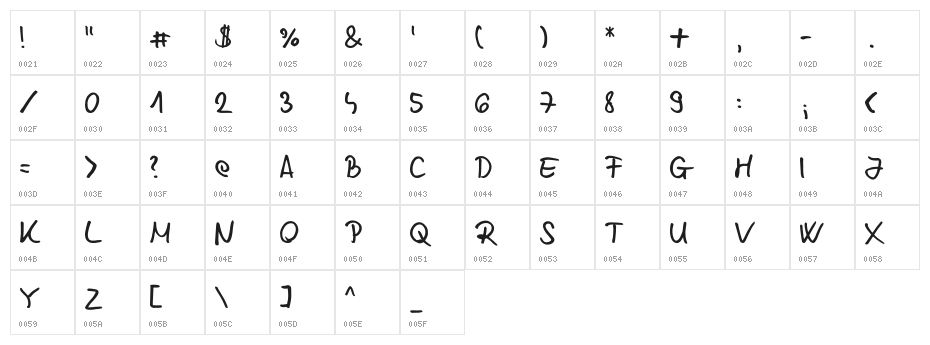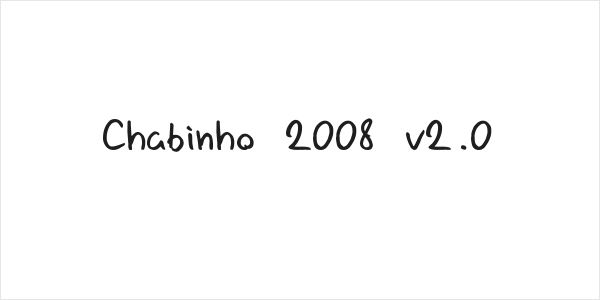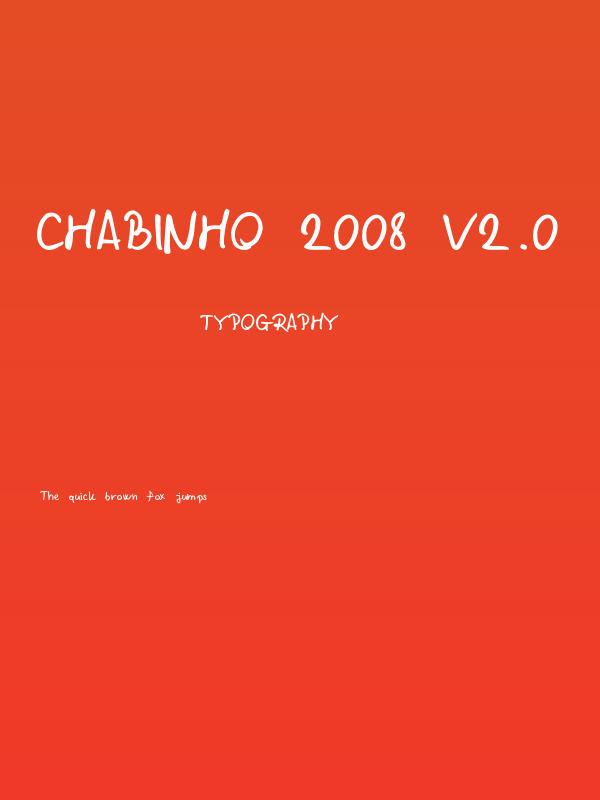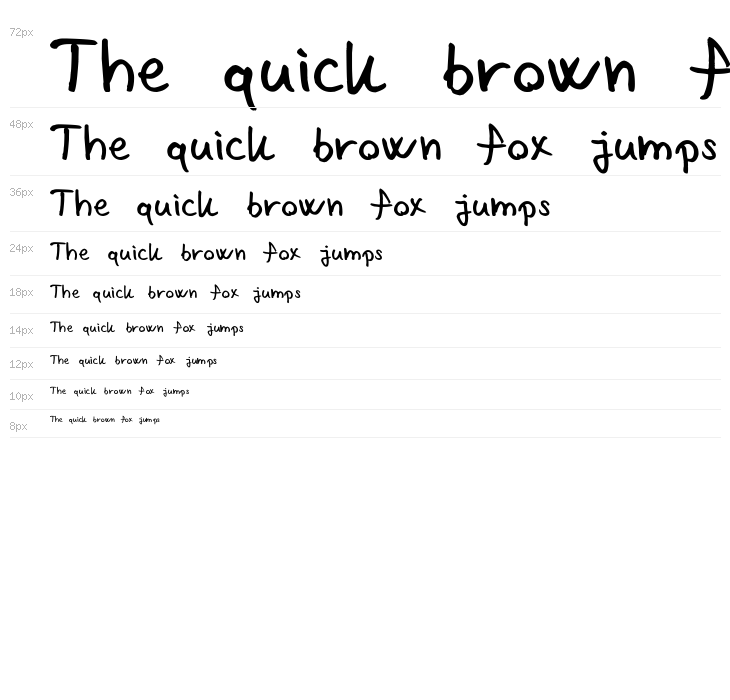
Chabinho 2008 v2.0 Font
Chabinho 2008 v2.0 Description
This font exhibits a playful and casual handwritten style, characterized by its fluid and slightly irregular strokes that mimic natural handwriting. The uppercase and lowercase letters maintain a consistent flow, with rounded edges and varying stroke widths that add to its informal charm. The numerals and special characters are crafted with the same whimsical touch, ensuring a cohesive look across all characters. This font's organic appearance makes it ideal for projects that require a personal and approachable feel.
| Use Case | Logos, Invitations, Social Media Graphics |
| Proposed Projects | Ideal for greeting cards, invitations, personal branding, and informal social media graphics. |